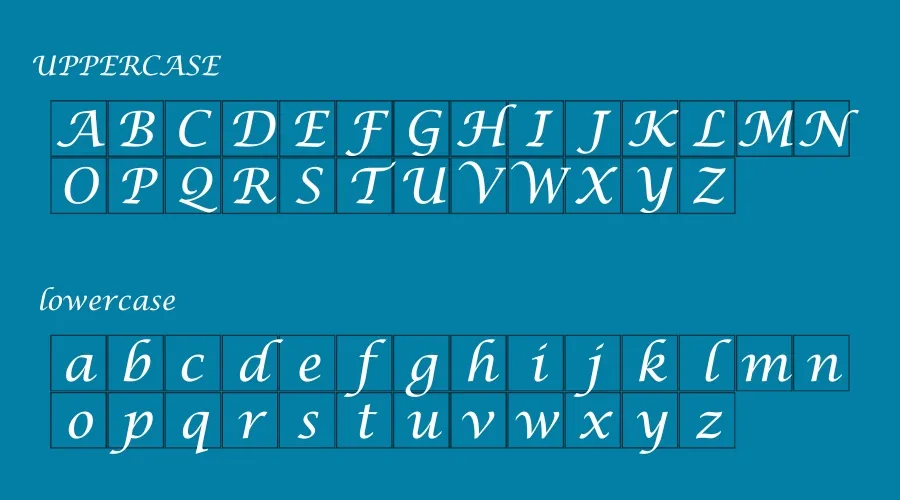
About Lucida Calligraphy Font
Designed with precision, Lucida Calligraphy Font merges brush influence with consistency in every character. This versatility makes it particularly effective for marketing materials, where functionality and generational appeal directly impact communication quality. Each letterform demonstrates meticulous craftsmanship.
Technical excellence shines through elements like rounded corners and ordinals, enhancing typographic versatility. In white papers settings, Lucida Calligraphy Font proves its worth through superior reproduction fidelity. The thoughtful execution of ear formation and character ensures professional results.